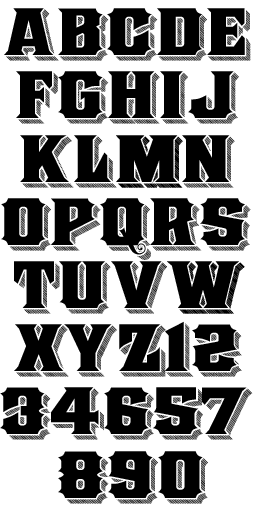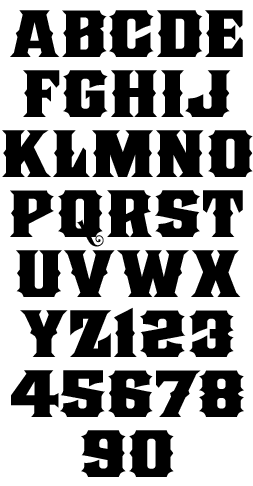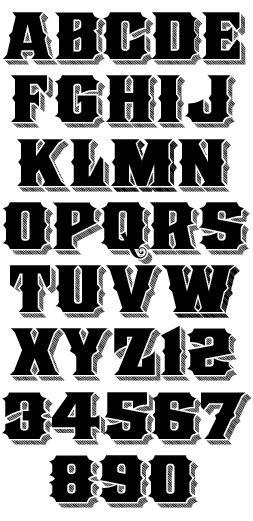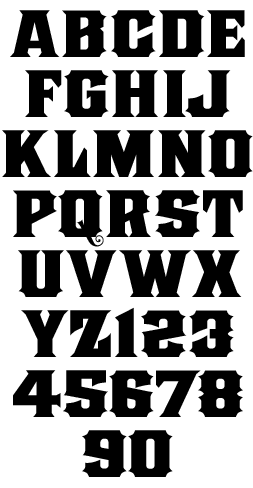
LHF Old Stock
Old Stock is inspired by old stock certificates. This commanding font has nice thick strokes for bevels and other creative possibilities. Includes shadow versions for a faux engraved look. 4 fonts.
Old Stock 1 Regular (Without Spurs)
Old Stock 1 Shadow (Without Spurs)
Old Stock 2 Regular (With Spurs)
Old Stock 2 Shadow (With Spurs)